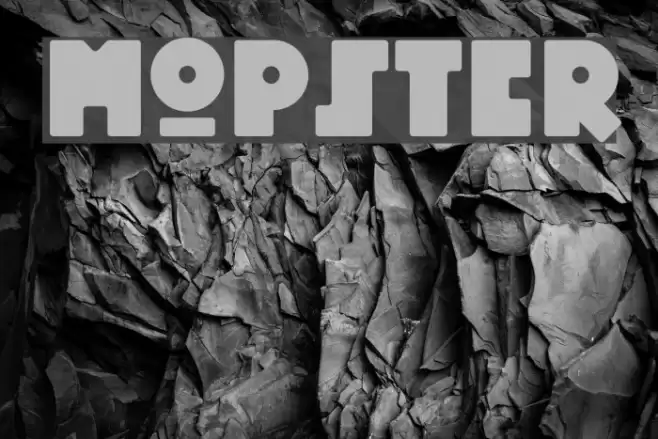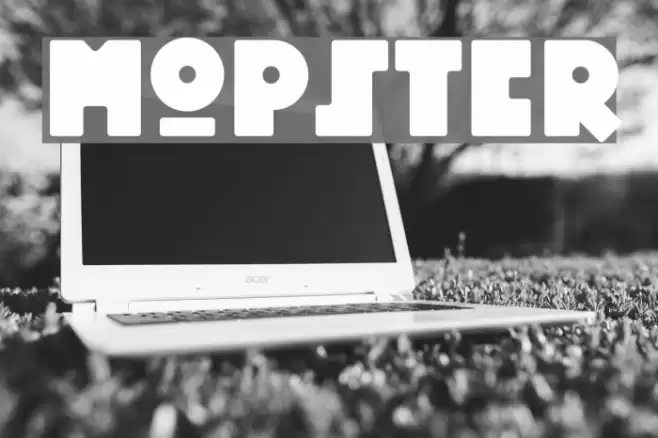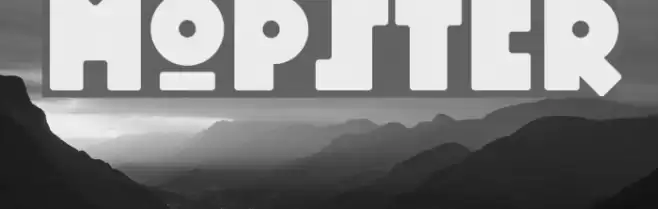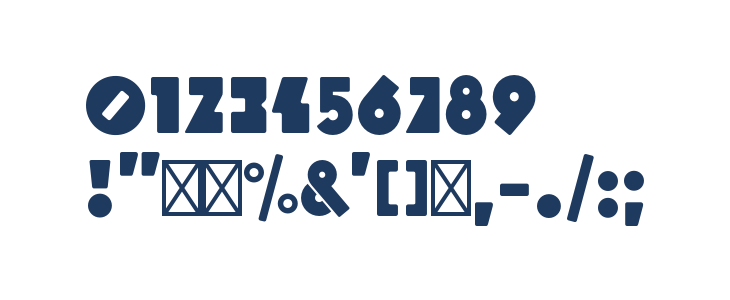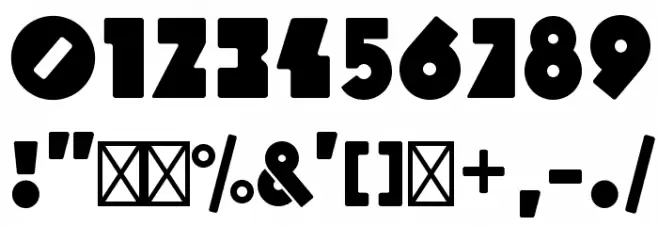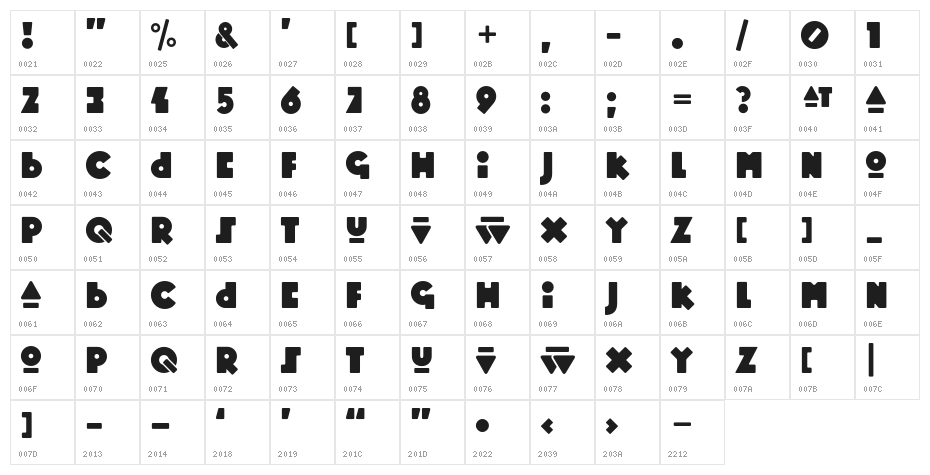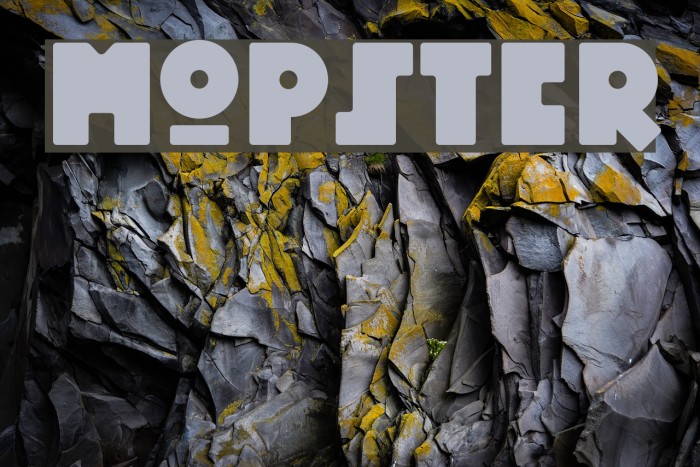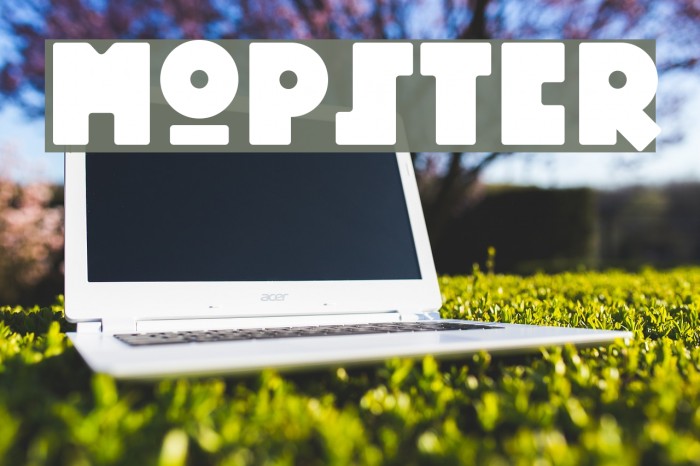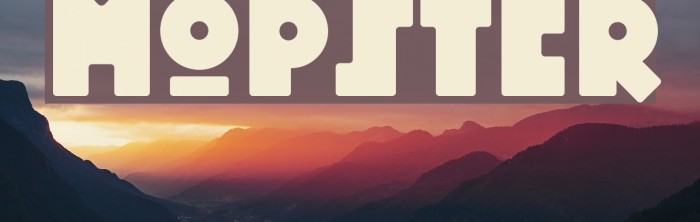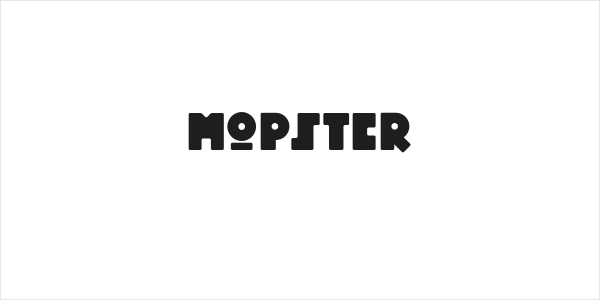
Mopster Font
Mopster Description
This font features bold, geometric shapes with a strong emphasis on symmetry and form. Each character is crafted with a unique blend of sharp angles and smooth curves, creating a striking visual impact. The uppercase letters are particularly bold, with some incorporating distinctive cutouts or lines that add to their decorative appeal. The lowercase letters maintain a similar style, ensuring consistency across the typeface. Numbers are equally bold and geometric, making them stand out in any design. Special characters are creatively designed, adding an extra layer of uniqueness to the font. Overall, this typeface is perfect for projects that require a modern, eye-catching aesthetic.
A bold, geometric font with unique cutouts and decorative elements from Uncategorized fonts.
- Proposed Projects: Ideal for posters, logos, branding, and any design requiring a modern, bold statement.